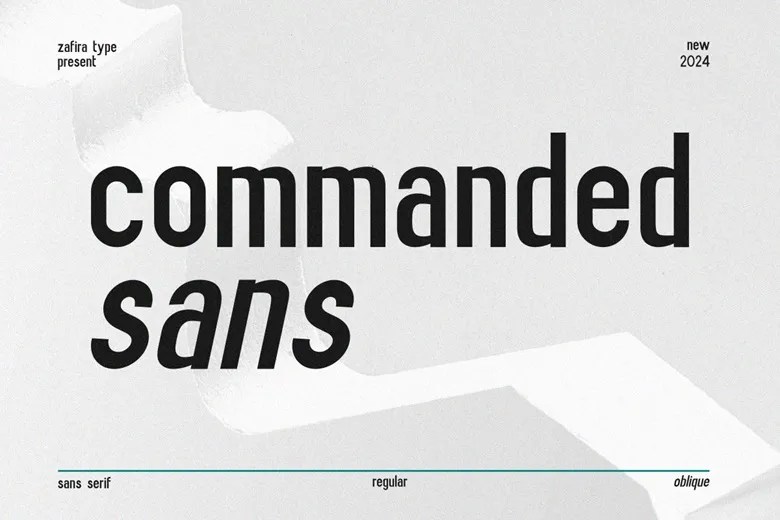
Commanded Sans Font
Commanded Sans is a contemporary sans serif font designed to convey a sleek and professional impression. Featuring two refined styles—Regular and Oblique—it blends sharp edges with well-proportioned characters to suit virtually any design project. Its clean and versatile appearance ensures it adapts seamlessly to a wide range of creative endeavors.
Whether you’re working on branding, editorial layouts, web designs, or advertisements, Commanded Sans is the perfect choice for achieving a polished and elegant look. Its balance of modern aesthetics and usability makes it an essential addition to your design toolkit.